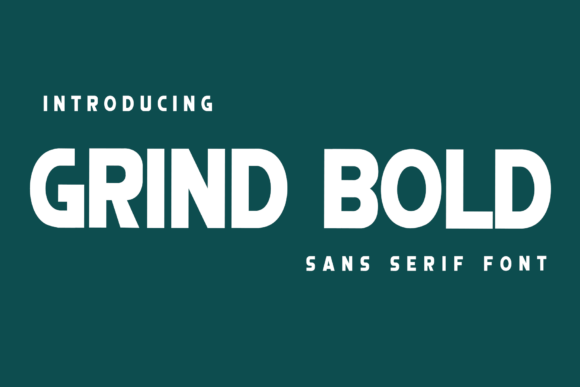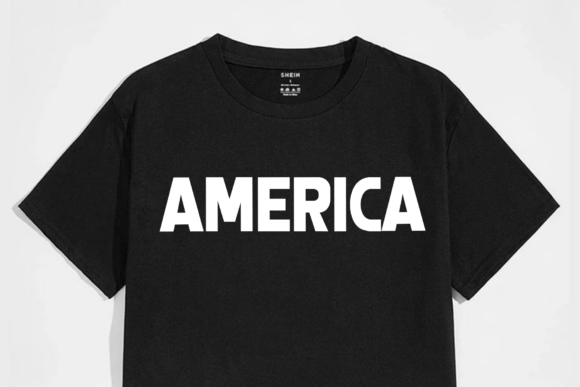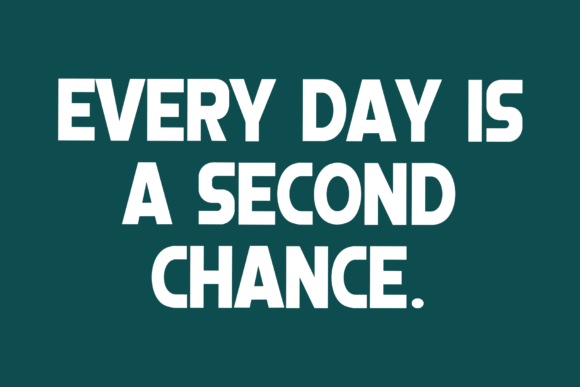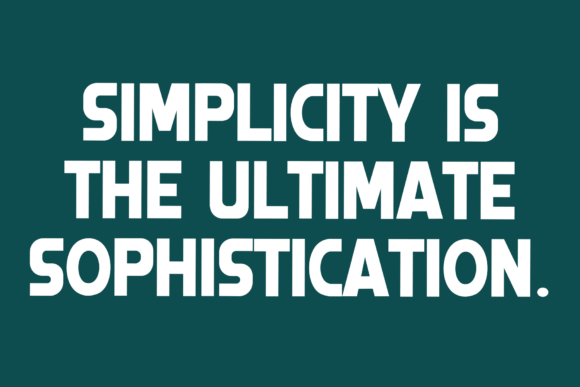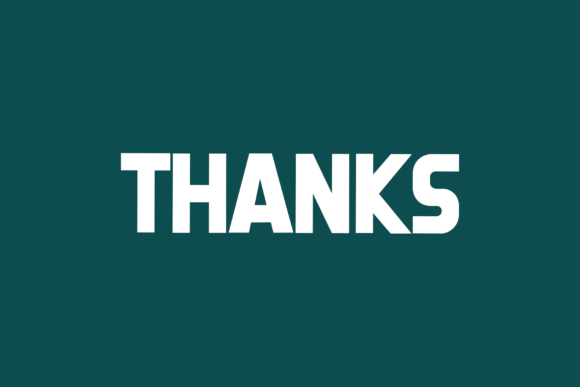
The Perfect Font for Making a Statement
Have you ever stared at a blank canvas, eager to bring a design to life, only to find the perfect font eluding you? It’s a frustrating feeling, but one that many designers can relate to. The right font can make all the difference in conveying a message, evoking emotions, and capturing attention. And that’s where Grind Bold Font comes in – a powerhouse of a font designed to make a lasting impression.
Grind Bold Font is a heavyweight sans-serif font that’s perfect for sports branding, construction company logos, and high-visibility warning signs. Its ultra-thick, blocky letterforms and clean, geometric edges give it an industrial strength and unwavering authority. As a designer, you’ll appreciate the versatility and impact that Grind Bold Font brings to your projects, making it a valuable addition to your font arsenal.
Key Features of Grind Bold Font
- Unique Characteristics: Geometric shapes, sharp angles, and a modern aesthetic make Grind Bold a versatile font for digital and print use
Designer Review: Grind Bold Font
Overall, I was pretty excited to dive into the Grind Bold Font, and while it has its moments, I have mixed feelings about this particular typeface.
- Unique Character**: The Grind Bold Font has a unique character that really stands out. The bold lines and geometric shapes give it a modern feel that’s perfect for futuristic or sci-fi designs.
- Good Legibility**: Despite its bold appearance, the font is actually quite legible, making it a great choice for body text or headings.
- Highly Customizable**: The font comes in a variety of weights and styles, making it easy to customize to suit your design needs.
- Not Ideal for Fine Text**: While the font is legible, it’s not the best choice for fine text or small print, as the bold lines can become difficult to read.
- Lack of Vintage Charm**: While the font has a unique character, it doesn’t have the same level of vintage charm as some other fonts in its class.
While the Grind Bold Font has some great qualities, it’s not a font that I would recommend for every design project. If you’re looking for a modern, futuristic font with good legibility, it’s worth considering. However, if you’re looking for a font with a vintage or elegant feel, you may want to look elsewhere.
Tips for Getting the Most Out of Grind Bold Font
Grind Bold Font is perfect for creating bold, eye-catching headings and titles. Use it to add emphasis to your text and make your design stand out.
Common use cases for Grind Bold Font include:
Headings and titles
Emphasis text
Branding and logos
Alternatives to Grind Bold Font for Designers
Montserrat Bold
Montserrat Bold is a modern sans-serif font that is highly legible and versatile. It is ideal for use in digital interfaces, such as apps, websites, and social media platforms. When to use: For digital products, especially those with a minimalist aesthetic. Comparison to Grind Bold: Montserrat Bold has a more geometric and clean look compared to Grind Bold, which has a more rustic feel.
Playfair Display Bold
Playfair Display Bold is an elegant serif font that is perfect for adding a touch of sophistication to designs. It is ideal for use in luxury branding, advertising, and editorial content. When to use: For high-end branding, advertising, and editorial content. Comparison to Grind Bold: Playfair Display Bold has a more luxurious and refined look compared to Grind Bold, which has a more rugged feel.
Great Vibes Bold
Great Vibes Bold is a script font that is perfect for adding a touch of personality to designs. It is ideal for use in creative branding, advertising, and editorial content. When to use: For creative branding, advertising, and editorial content. Comparison to Grind Bold: Great Vibes Bold has a more playful and expressive look compared to Grind Bold, which has a more bold and rugged feel.
The recommended font size for Grind Bold is between 18-24 points for headings and 12-14 points for body text. However, the ideal font size will depend on the specific design and the intended use of the font.
Can I use Grind Bold for digital signage or large-scale displays?
Yes, Grind Bold is designed to be legible at large font sizes, making it suitable for use in digital signage, billboards, or other large-scale displays. However, it’s recommended to test the font at different sizes and resolutions to ensure optimal legibility.